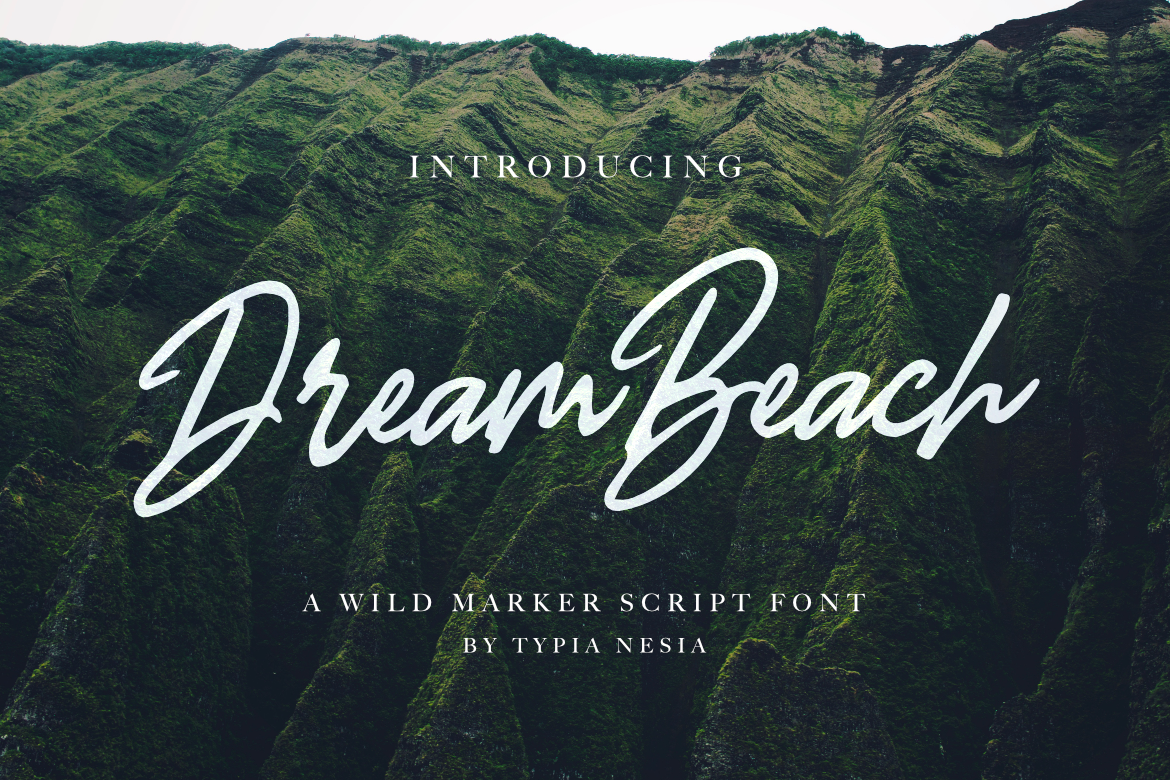
Dream Beach is a wild marker script font.
It suitable for logo, branding, t-shirt, poster, packaging, book cover, hipster design, cards, and any brush lettering needs and more.